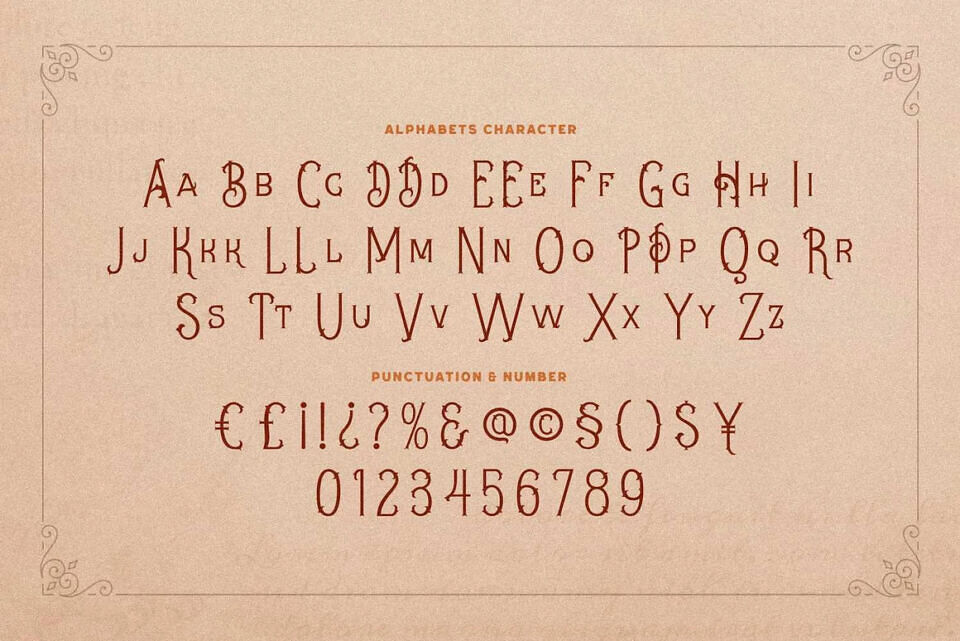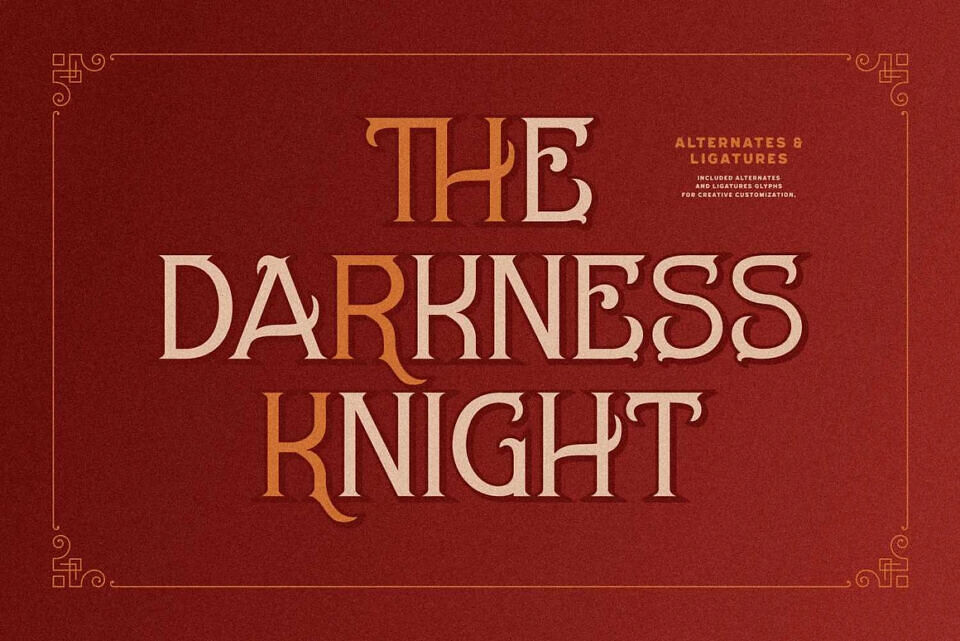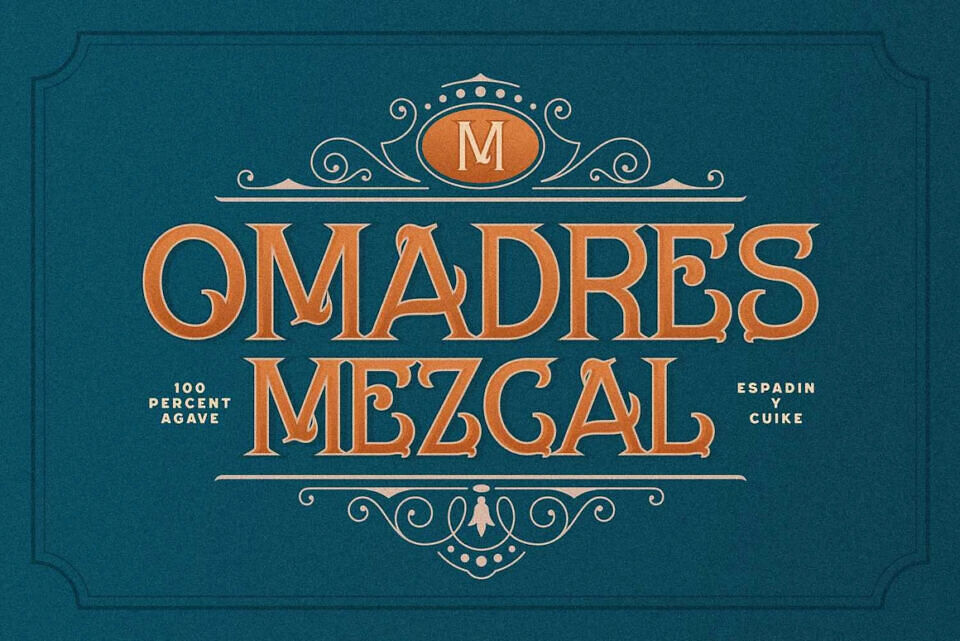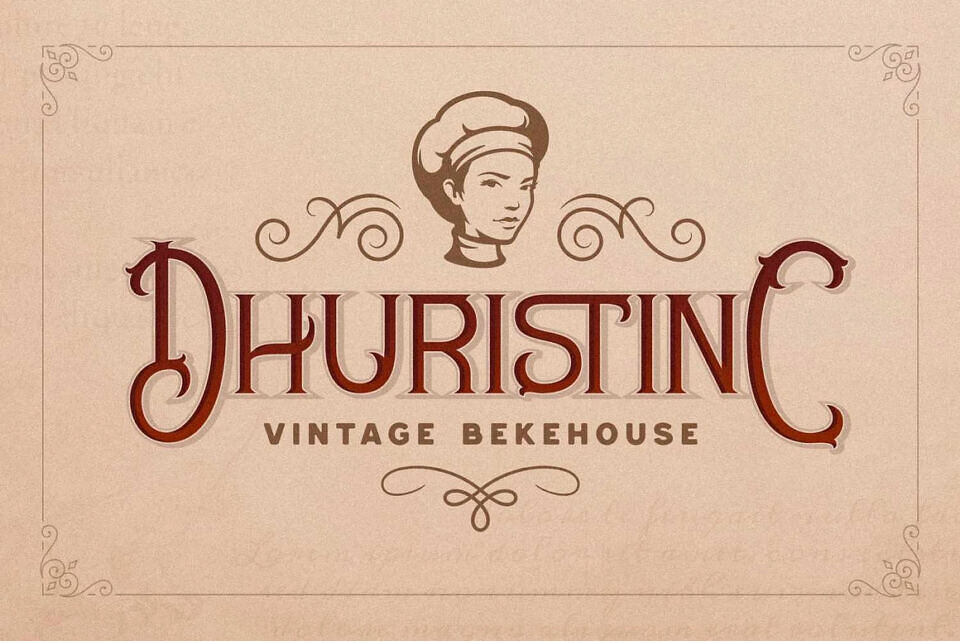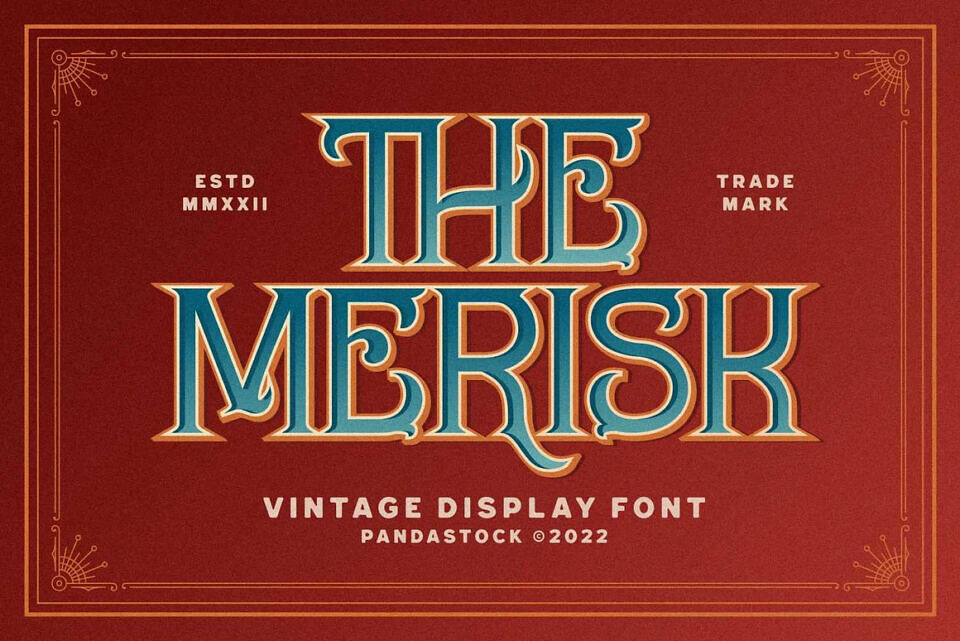
Merisk Font
Merisk is a Victorian style ornamental font with distinctive curlicues and vintage charm. Slender, sharp letterforms with decorative deep spiral and bracketed serif, giving every letter a hand tooled, apothecary feel. The capital letters are elegant and elongated, while the lowercase letters reflect the same narrow rhythm for tight, dramatic word forms.
Every character feels like part of an antique shop sign, a turn of the century show poster, or the title of a fantasy storybook. Both uppercase and lowercase share the same decorative style, making it perfect for creating headlines, vintage packaging, beverage labels, posters, tarot themes, invitations, or eye catching branding that calls for a nostalgic touch.